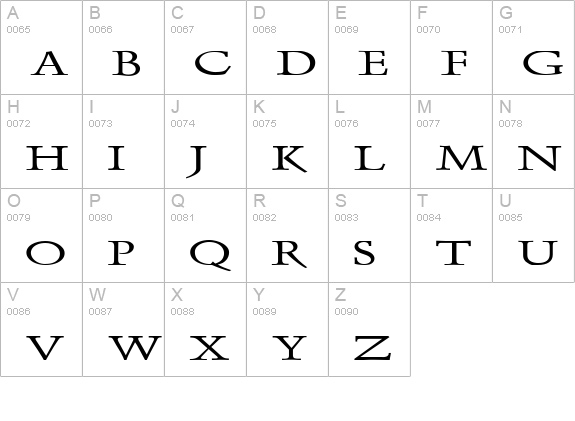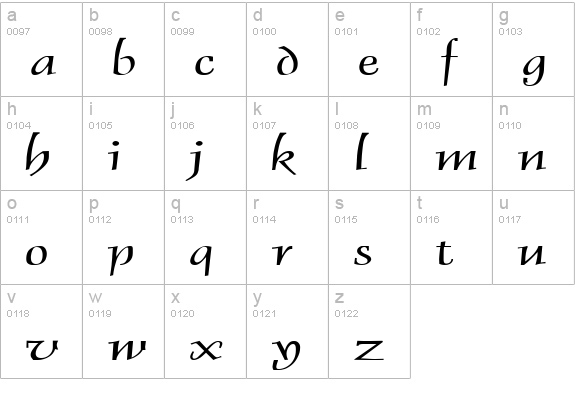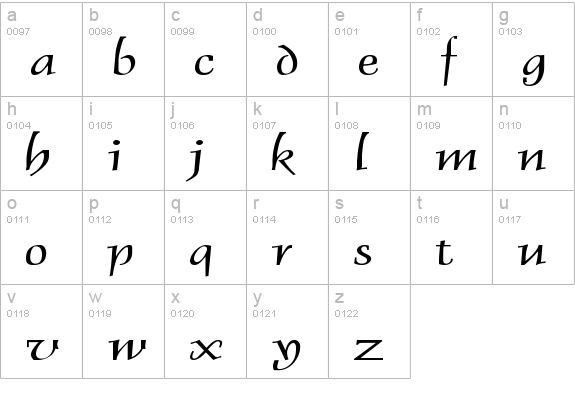
Dolphin Extended Normal is the standard, neutral, extended-width variant in the Dolphin typeface family \xE2\x80\x94 well suited to general body text, paragraphs, and standard typographic work.
Dolphin Extended Normal font is a sleek and modern typeface that exudes elegance and sophistication. With its extended characters and clean lines, this font is perfect for a wide range of design projects, from branding to editorial work. The versatility of Dolphin Extended Normal makes it a great choice for both print and digital applications. Best of all, Dolphin Extended Normal font is available for free download at FontsMarket.com. Whether you're a designer looking to add a new font to your collection or a business owner in need of a fresh look for your brand, this font is the perfect choice. Download Dolphin Extended Normal today and elevate your designs with its timeless appeal.